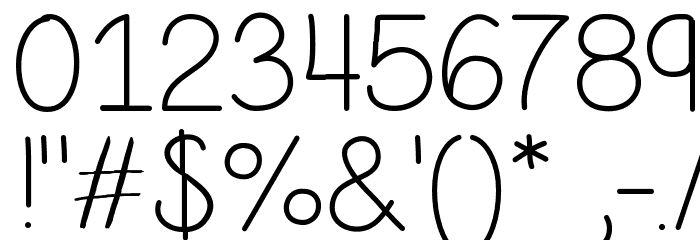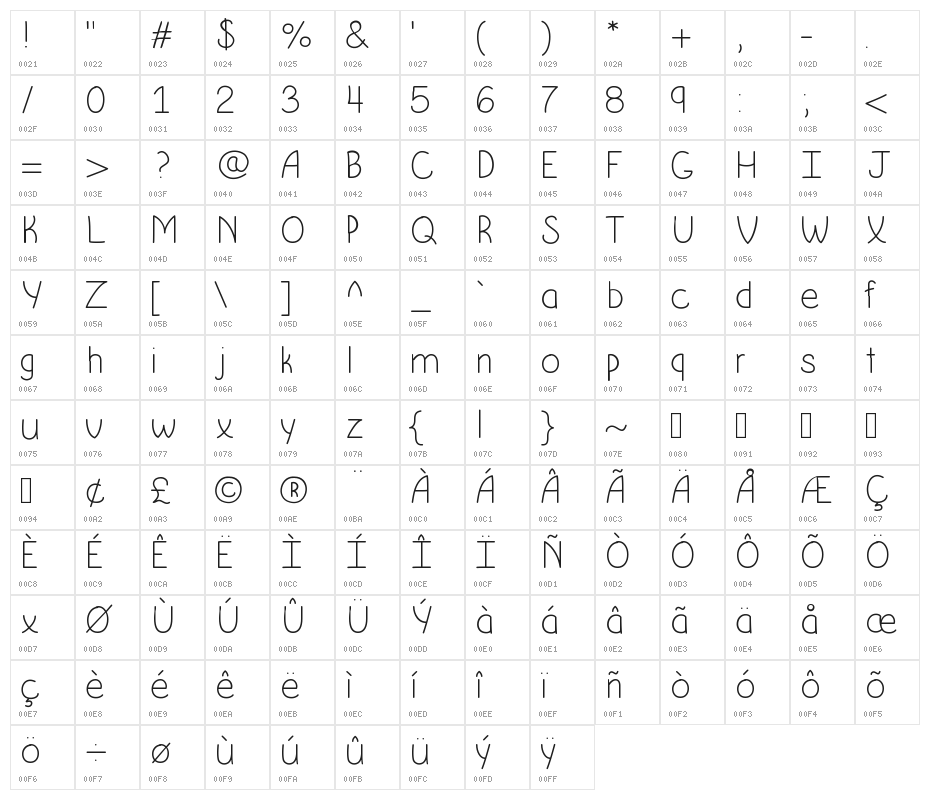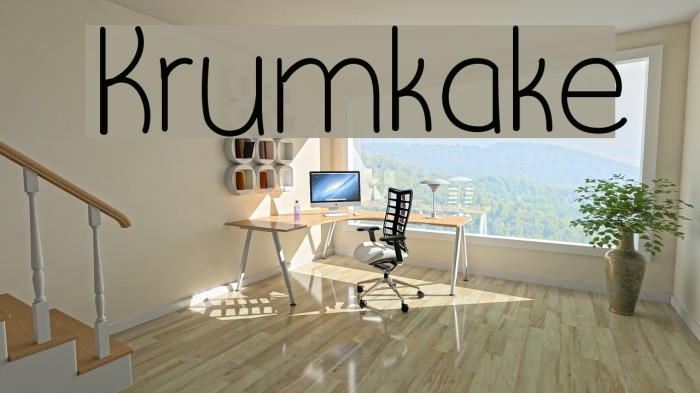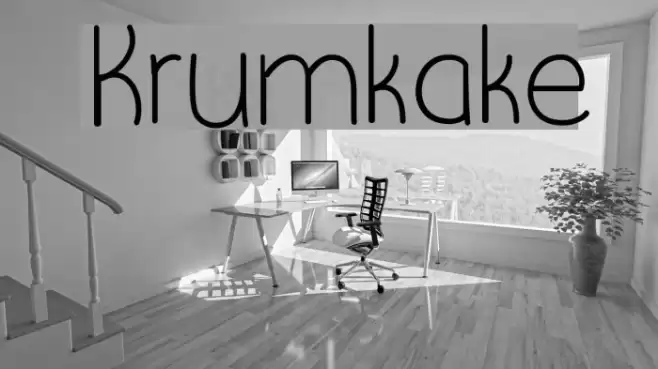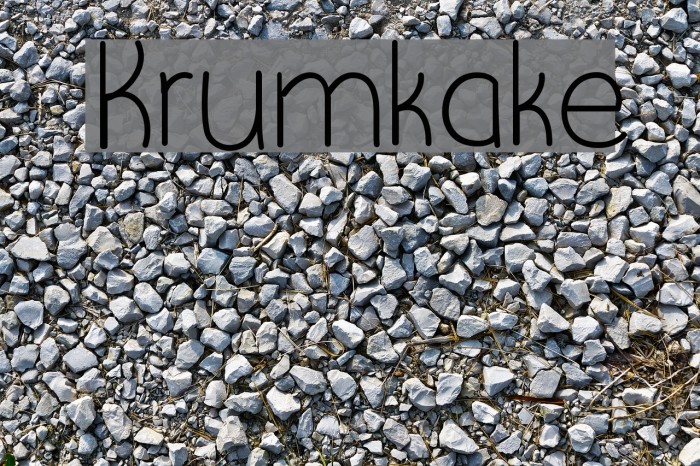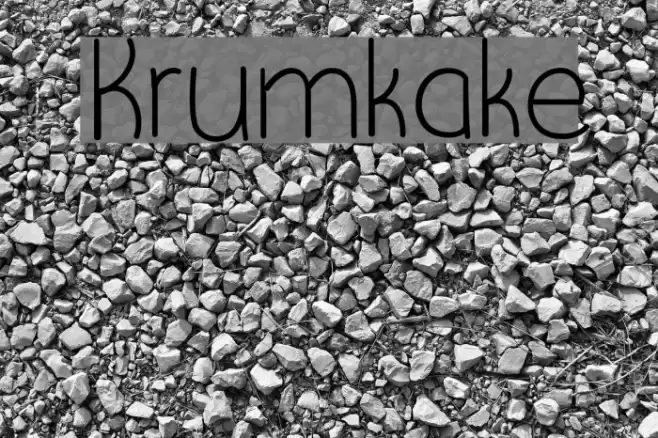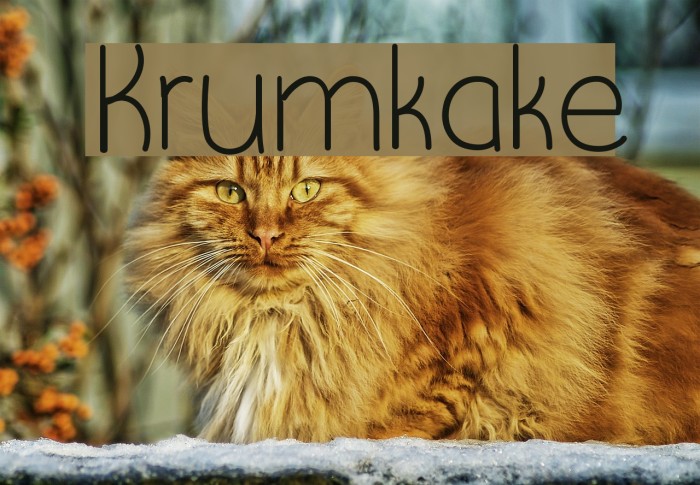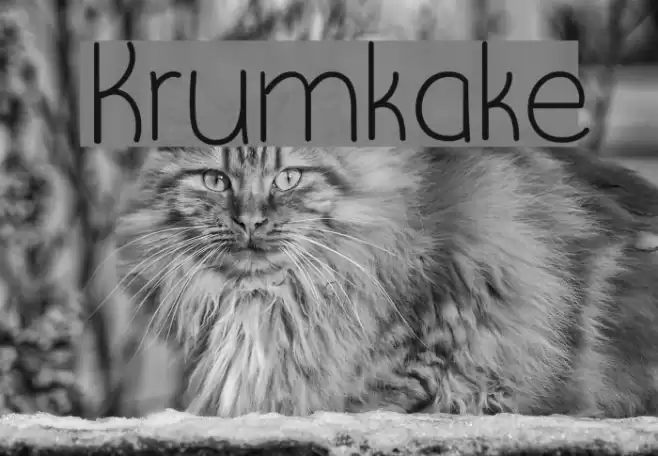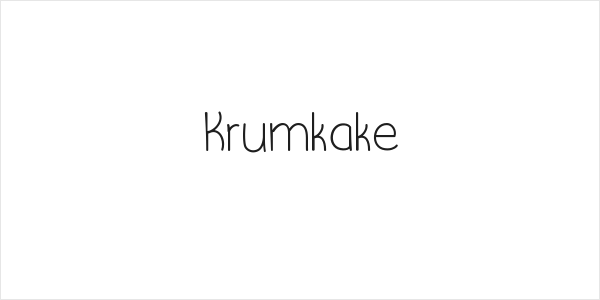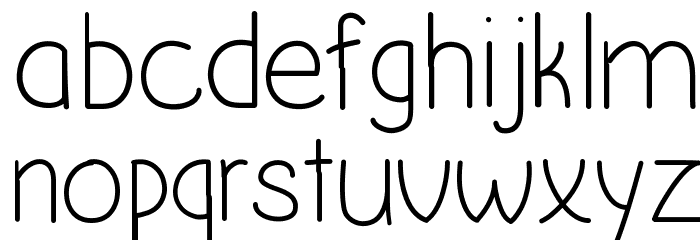
Krumkake Font
Krumkake Description
This font features a playful and whimsical design with a handwritten style. The characters are rounded and slightly irregular, giving it a friendly and approachable appearance. The uppercase letters are tall and slender, while the lowercase letters maintain a consistent height, contributing to a cohesive look. The numerals and special characters follow the same playful aesthetic, making the font versatile for various creative projects. Its unique style is perfect for adding a personal touch to designs, whether for digital or print media.
| Proposed Projects | Ideal for children's books, greeting cards, playful branding, and creative social media graphics. |